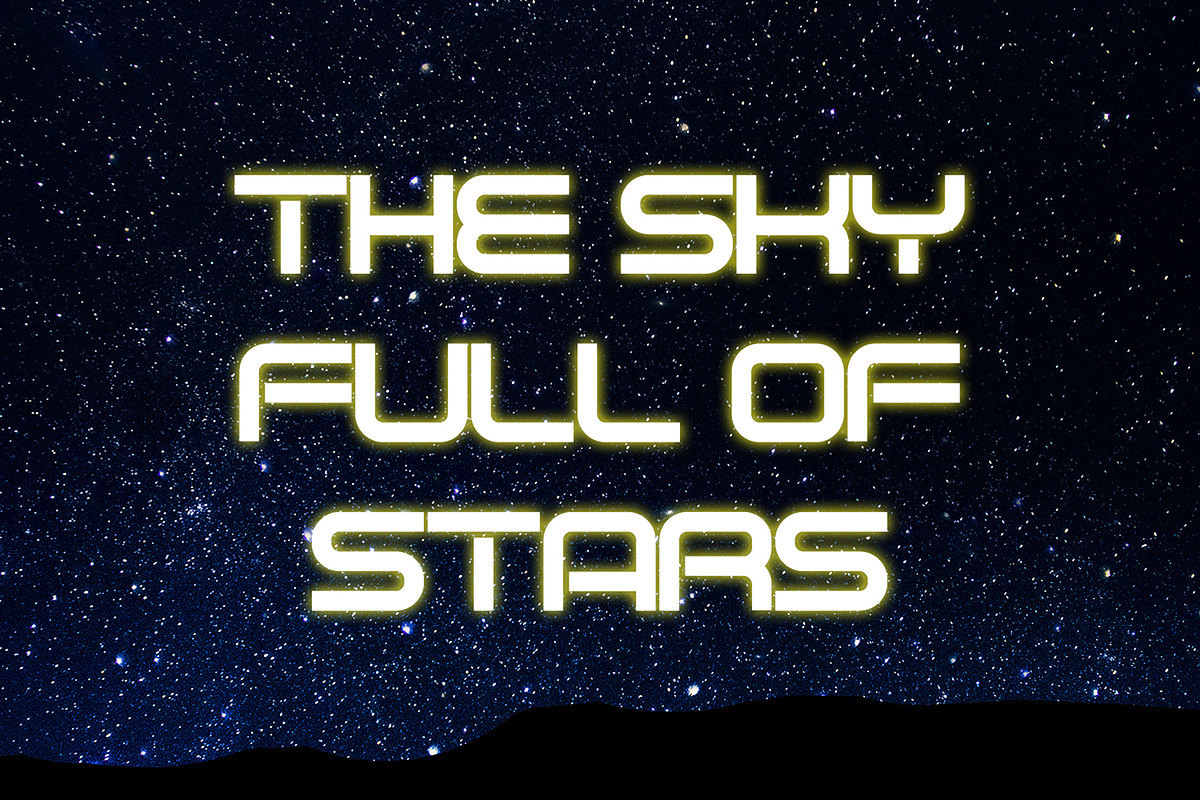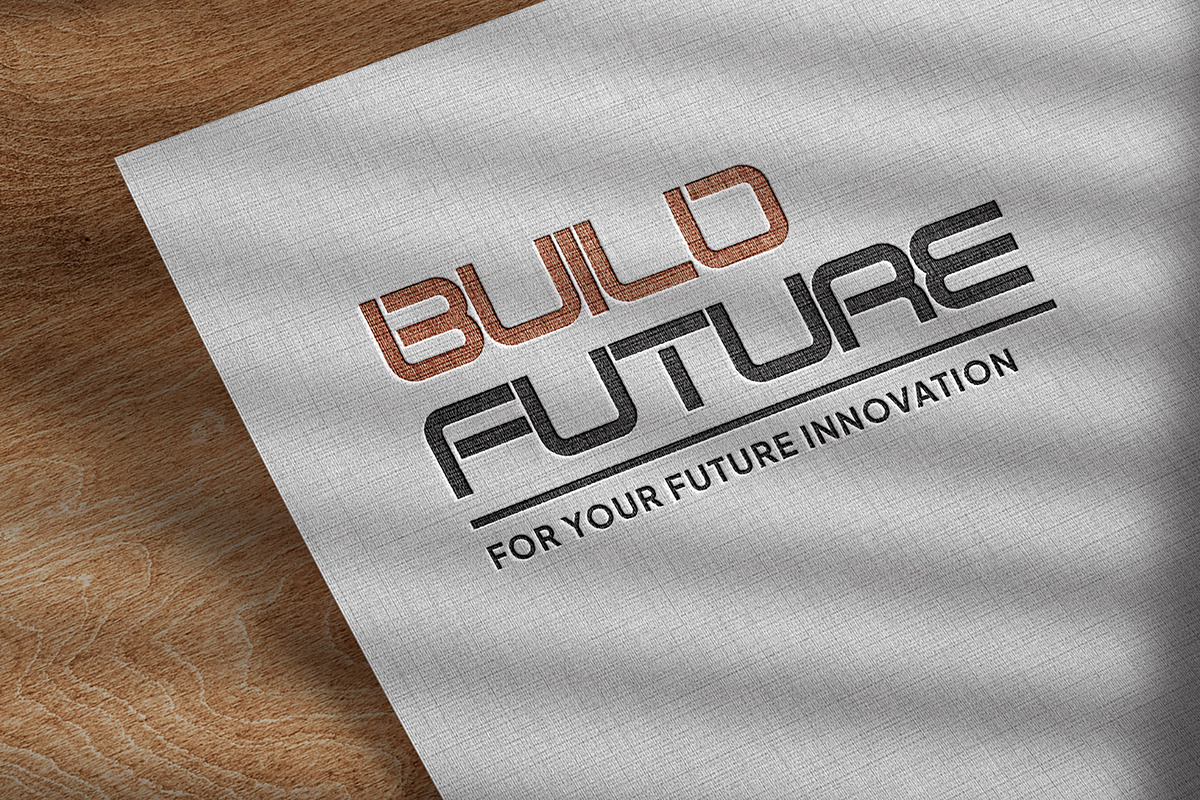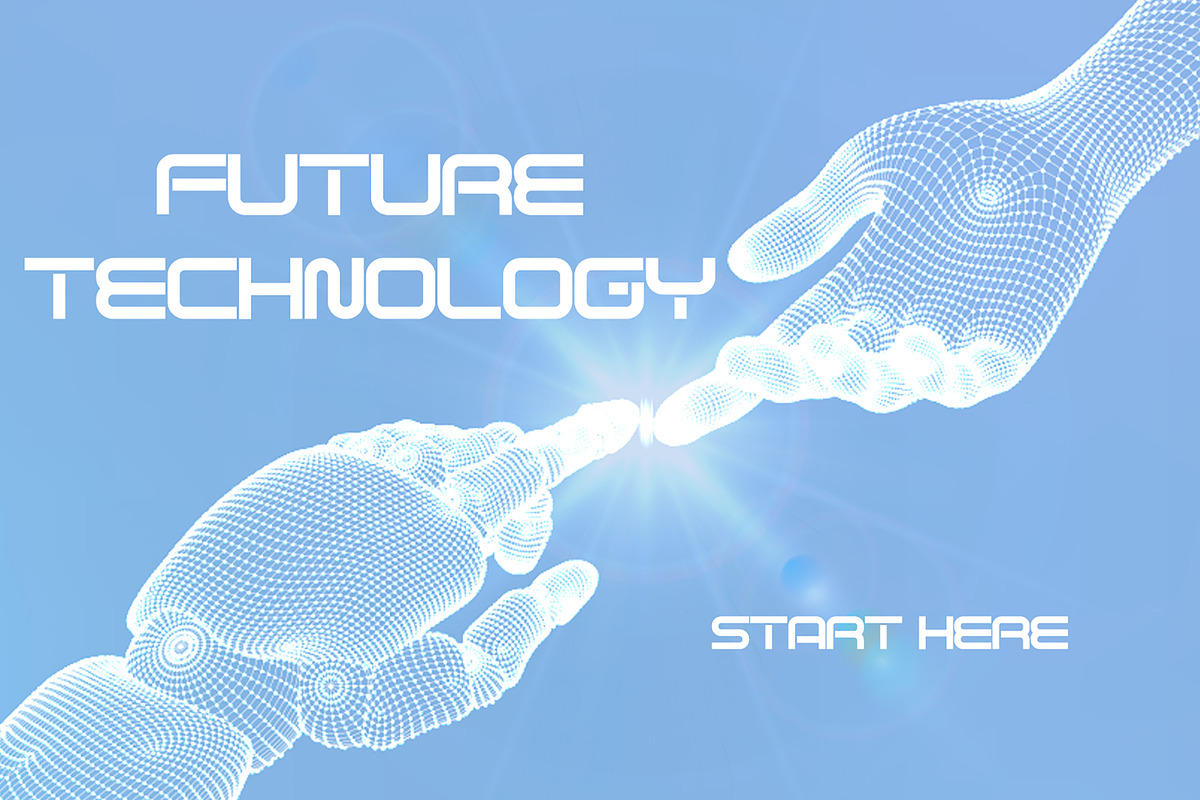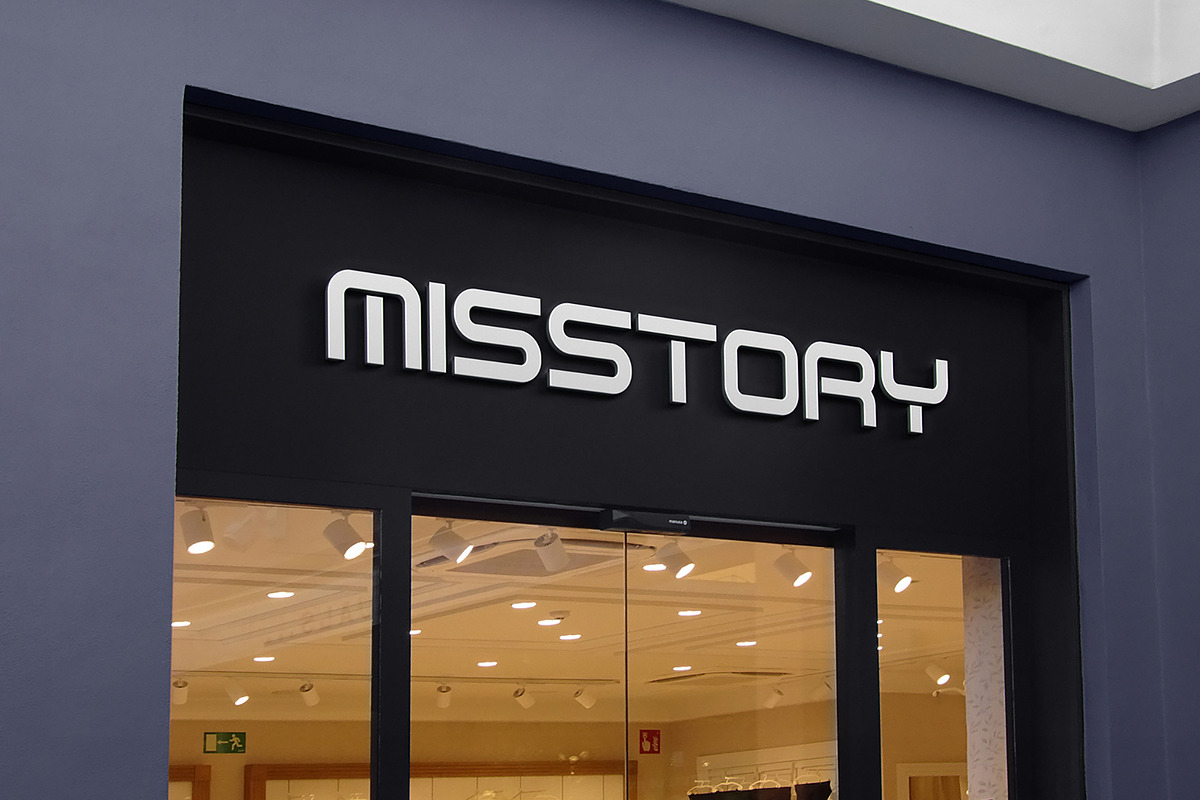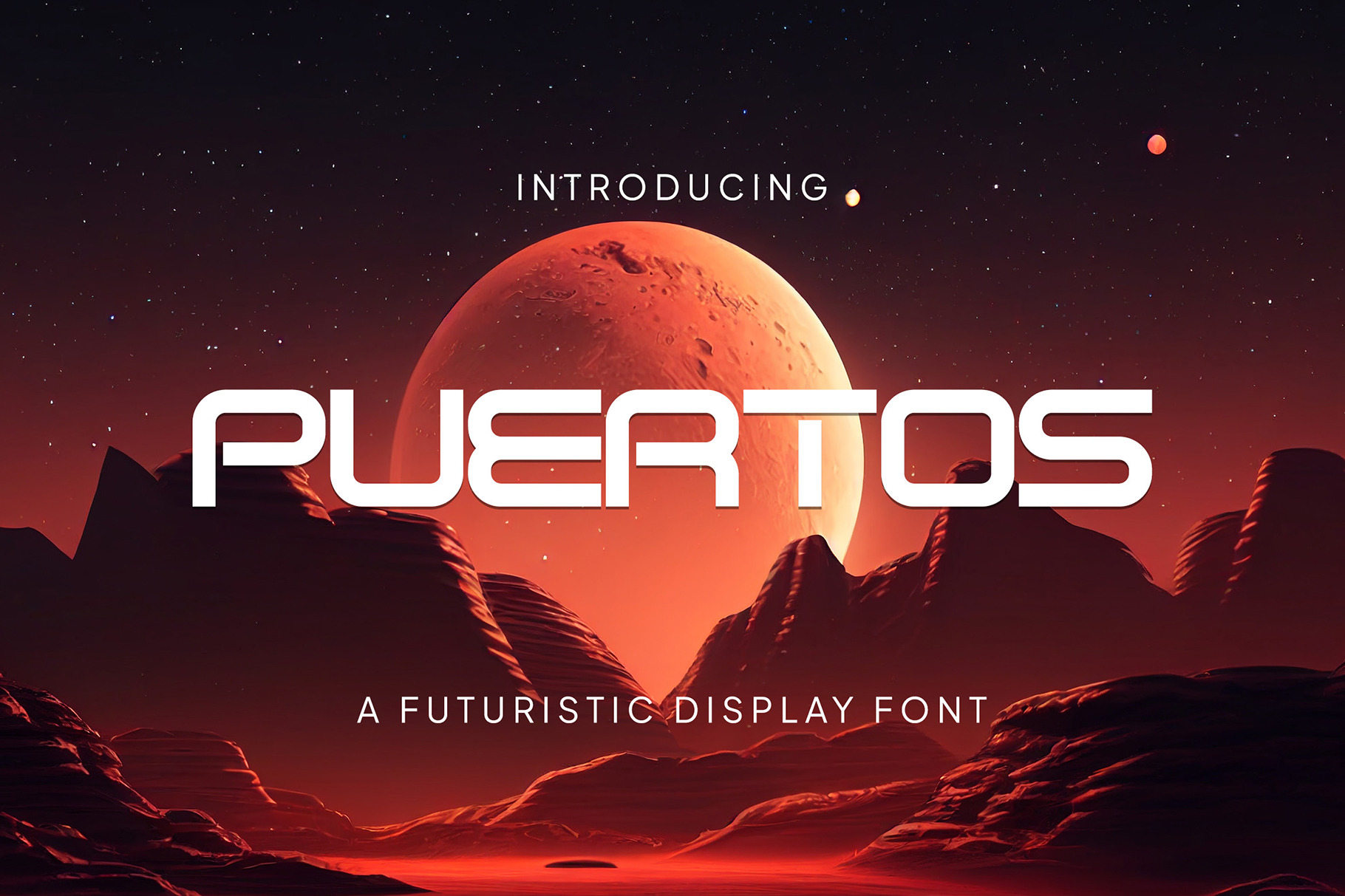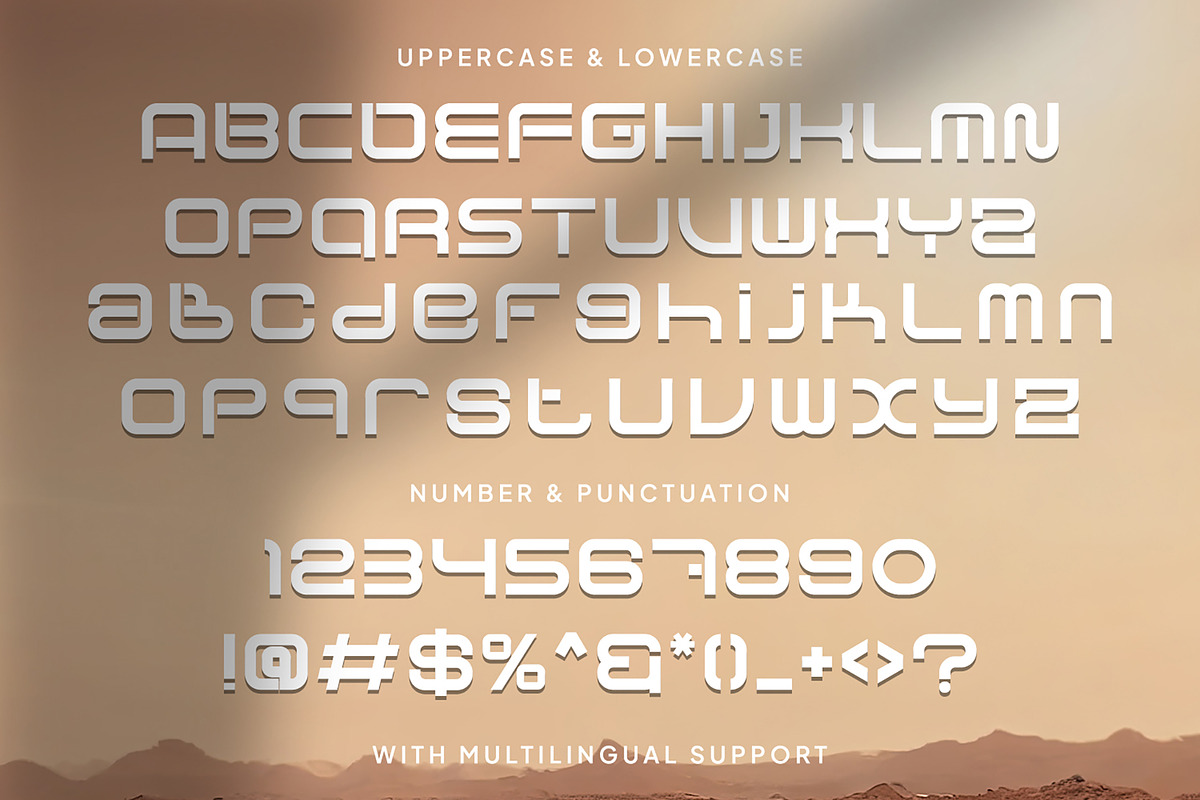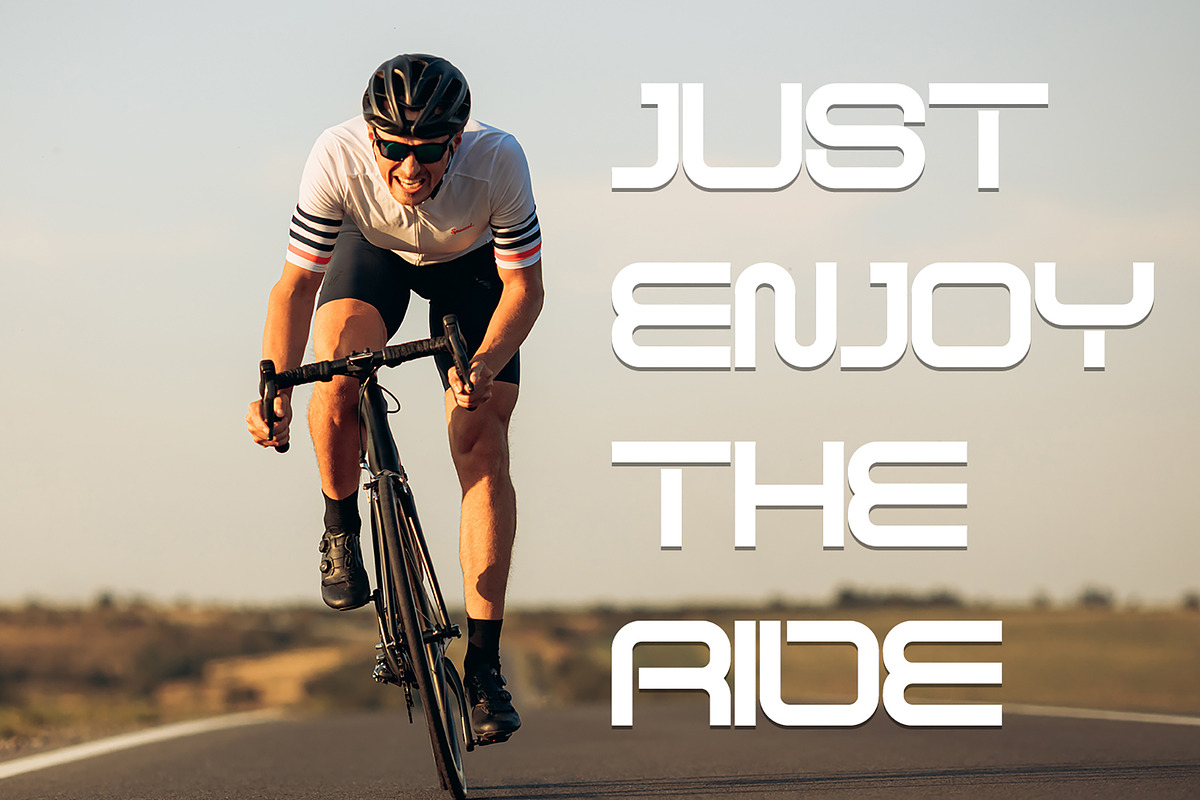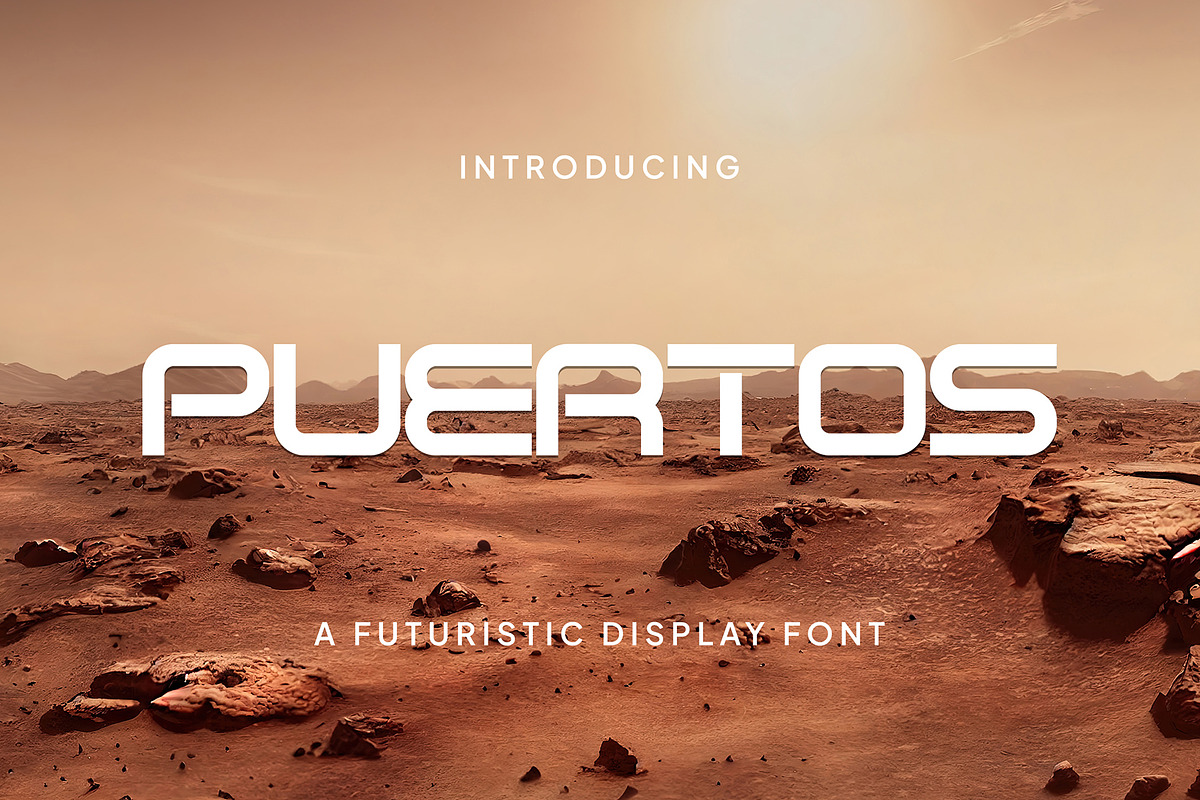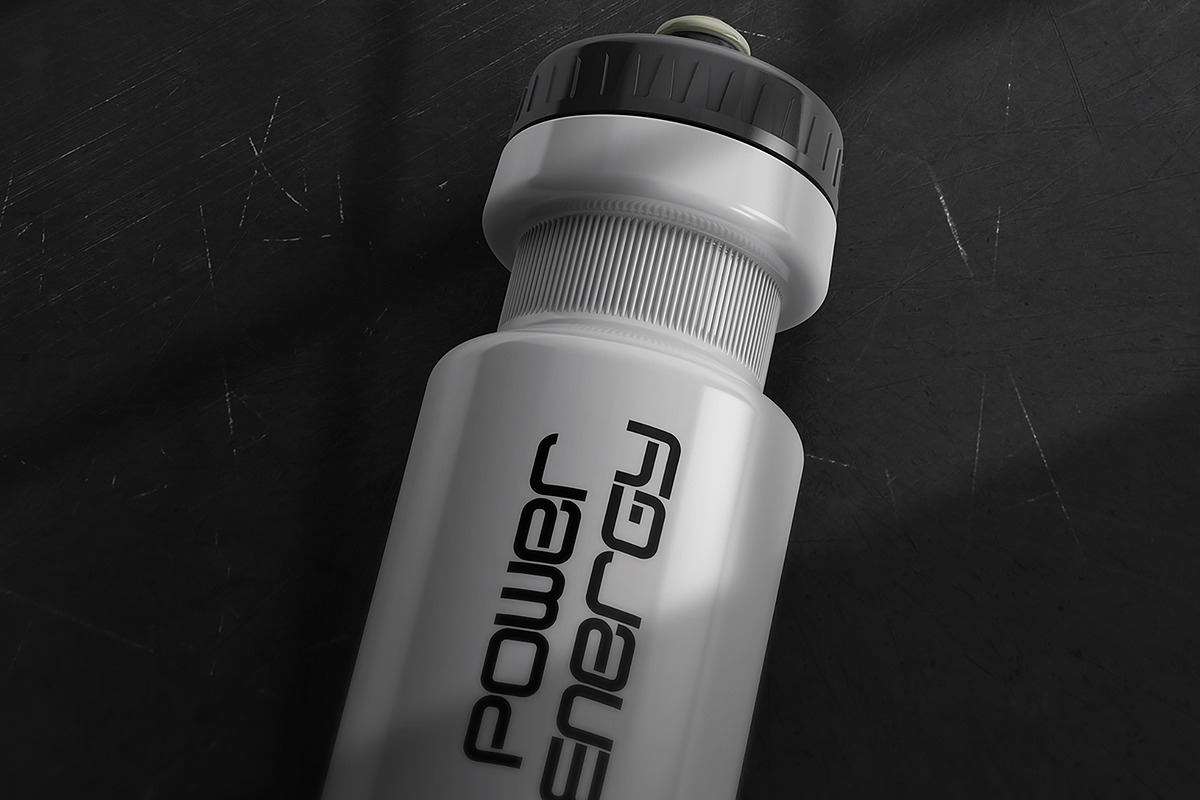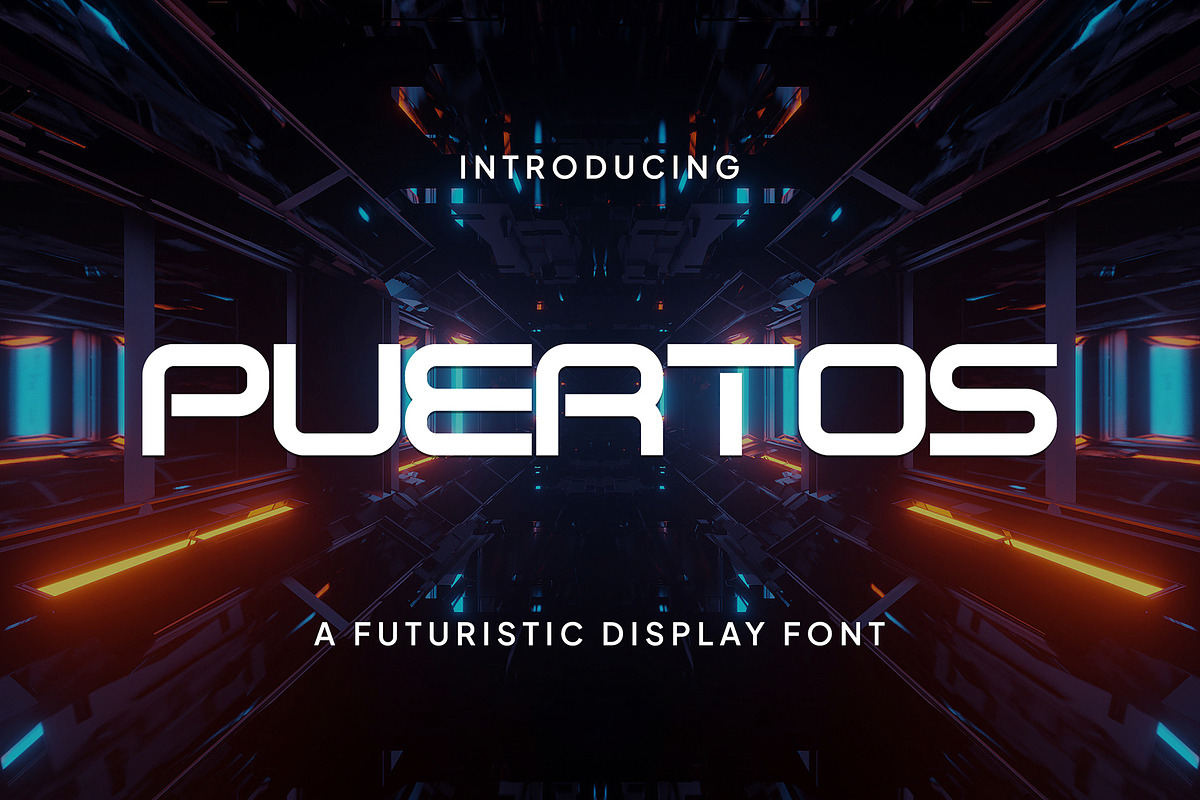
Puertos - Geometric Futuristic Font
Puertos - Geometric Futuristic Display Font
Simple, Modern, & Bold - Geometric Futuristic Display Font
Perfect for Logotype, brand logo, apparel design, clothing, fashion, creative industry, signature, headline/title on poster, brochure, packaging, wedding invitation, quotes, magazine, social media etc.